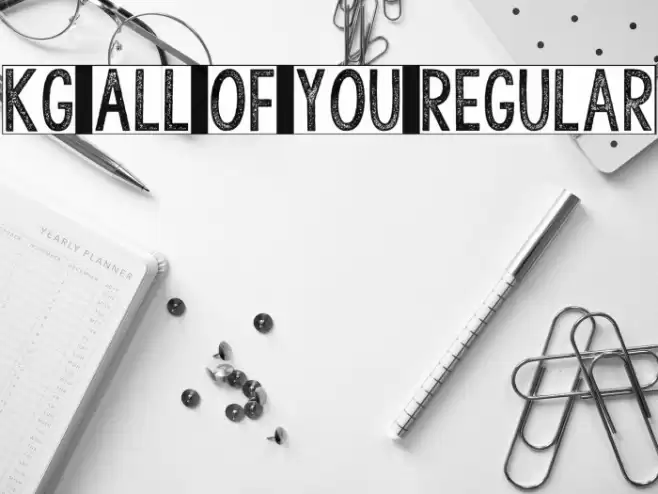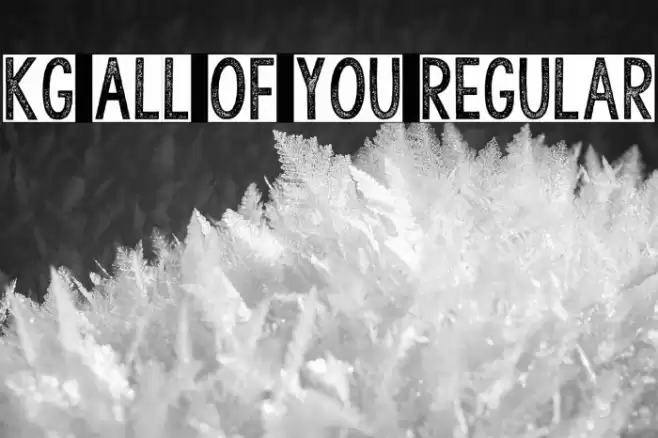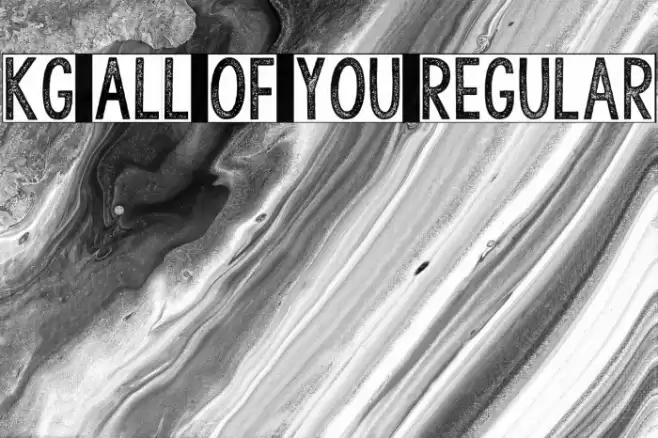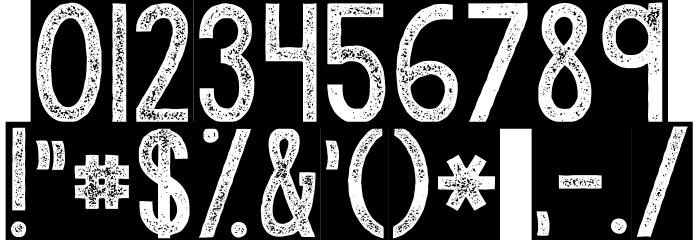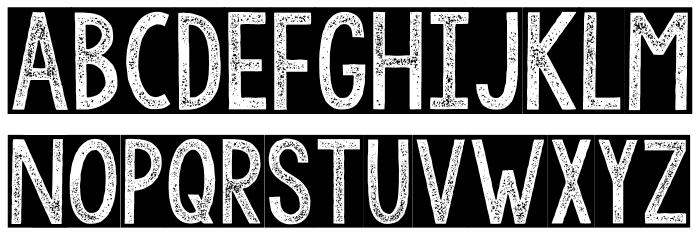
KG All of You Regular Font
KG All of You Regular Description
This font features a bold, distressed style with a textured appearance that gives it a vintage and rugged feel. The characters are uppercase and lowercase, with numbers and a variety of special symbols. The texture within each character adds a unique, worn look, making it ideal for projects that require a rustic or handcrafted aesthetic. The letters are evenly spaced, providing a balanced and consistent appearance across all characters. This font's boldness ensures it stands out, while the distressed detailing adds character and depth.
A bold, distressed font with a vintage, textured appearance from Dingbats fonts.
- Proposed Projects: Ideal for vintage-themed posters, rustic branding, apparel design, and creative packaging.
- Overall Style: Vintage